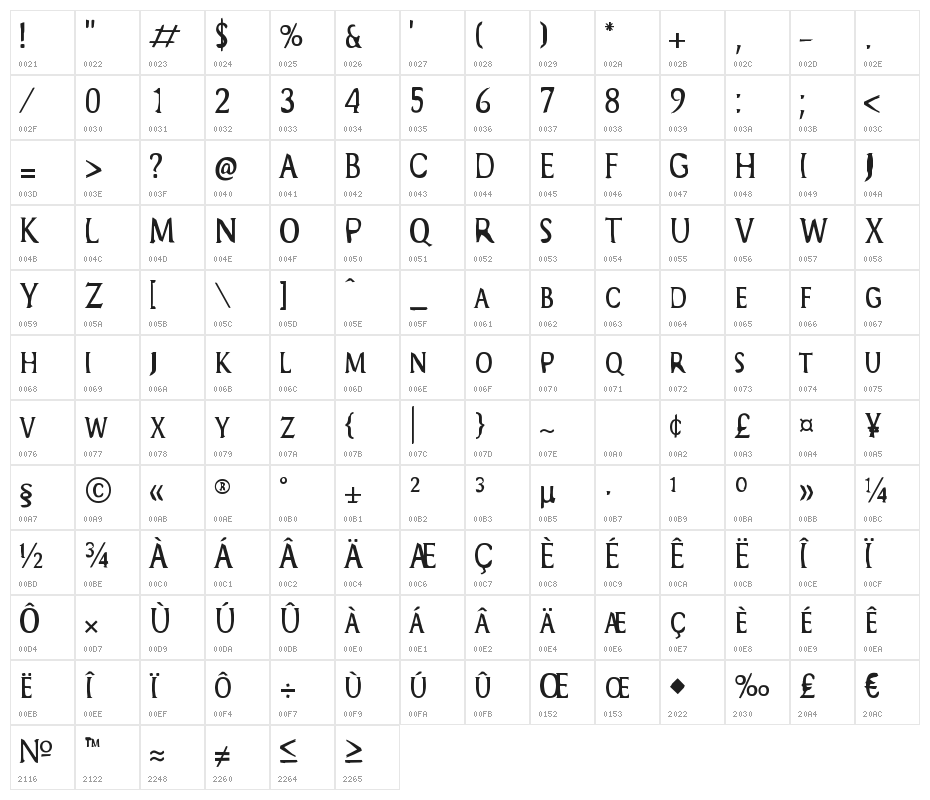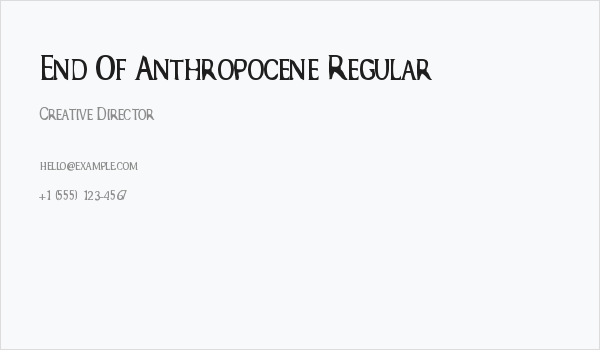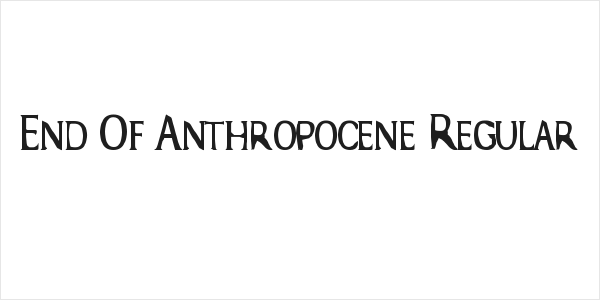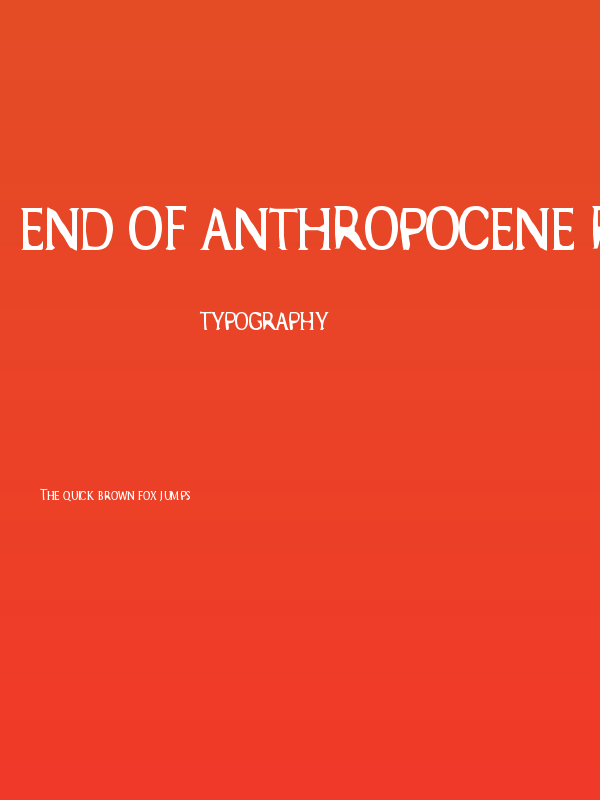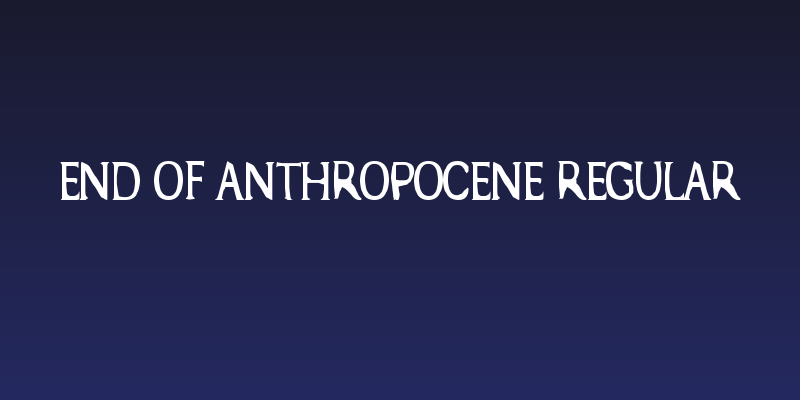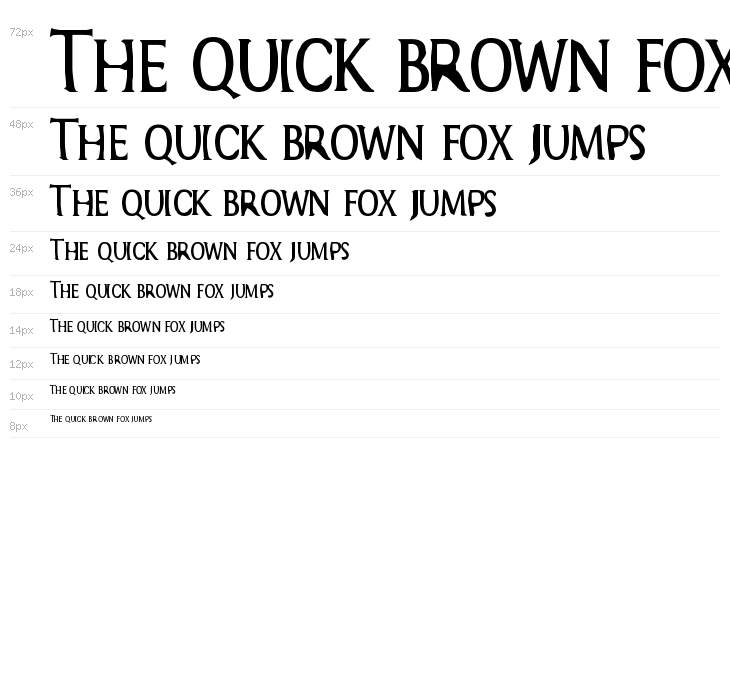
End Of Anthropocene Regular Font
End Of Anthropocene Regular Description
This font exhibits a unique blend of modern and vintage elements, characterized by its sharp, angular serifs and slightly irregular strokes that give it a hand-crafted appearance. The uppercase letters are bold and commanding, with a distinct presence that makes them ideal for attention-grabbing headlines. The lowercase letters maintain a consistent style, offering a cohesive look across different text sizes. Numbers and special characters are designed with the same attention to detail, ensuring readability and aesthetic appeal. The overall style is reminiscent of medieval script, yet it retains a contemporary edge, making it versatile for various design applications.
| Overall Style | Modern, Vintage |
| Proposed Projects | Ideal for branding projects, book covers, posters, and any design work that requires a bold, distinctive typeface. |